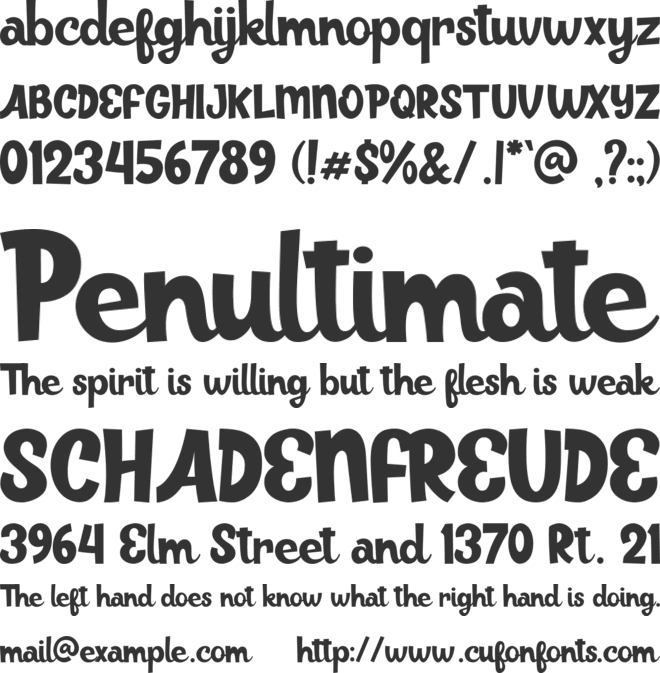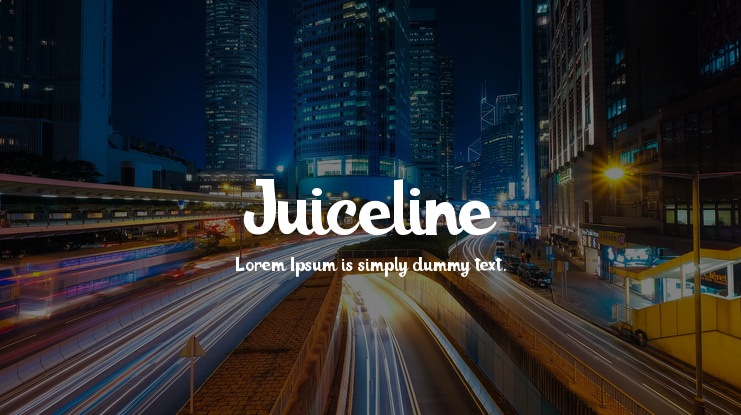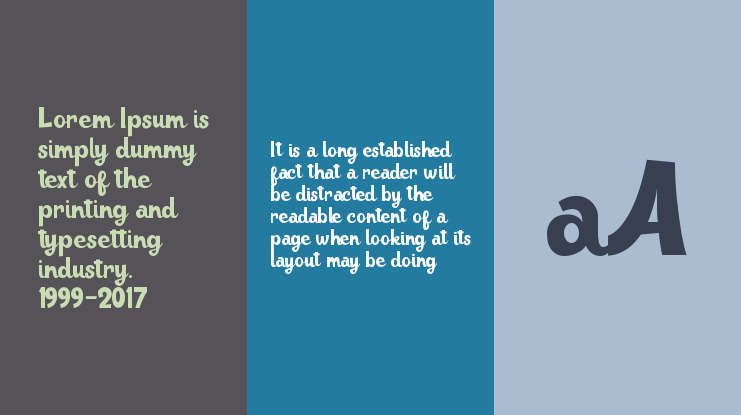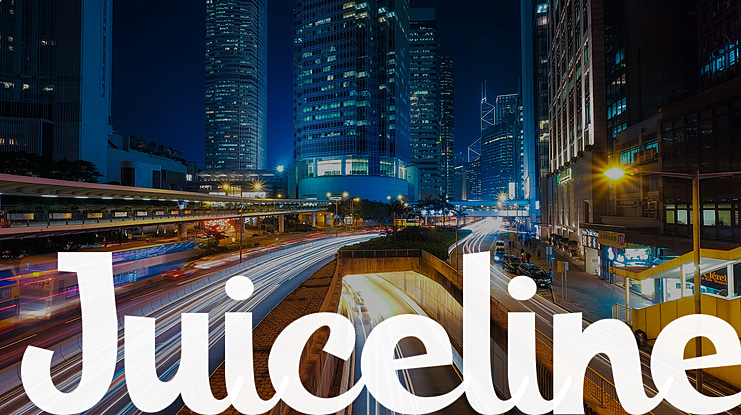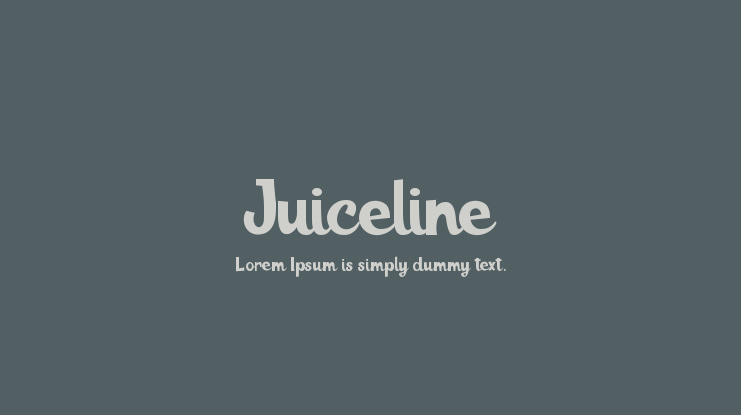
Juiceline Font
Juiceline is bold script font with outline and shadow fonts. The font is equipped with opentype features. Which is including alternative characters such as : contextual alternates, stylistic alternates, and swash variant.